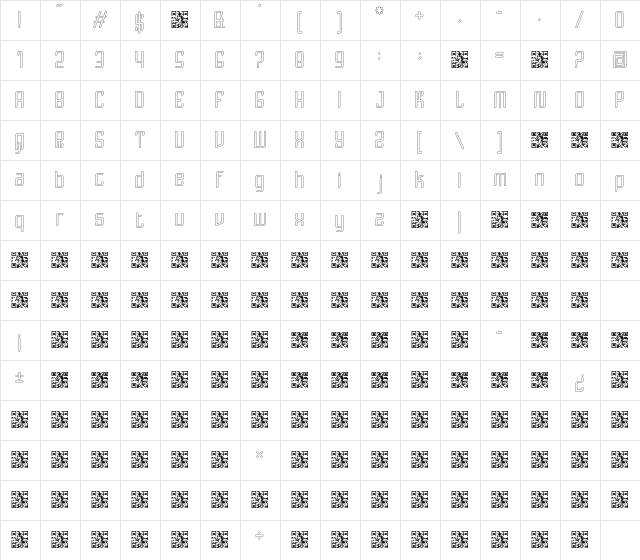
STARTER Hollow Regular
| Designer | Tri Kuncoro |
Design Context for STARTER Hollow Typeface
STARTER Hollow is a composed and adaptable typeface that performs quietly and consistently across a wide range of design contexts.